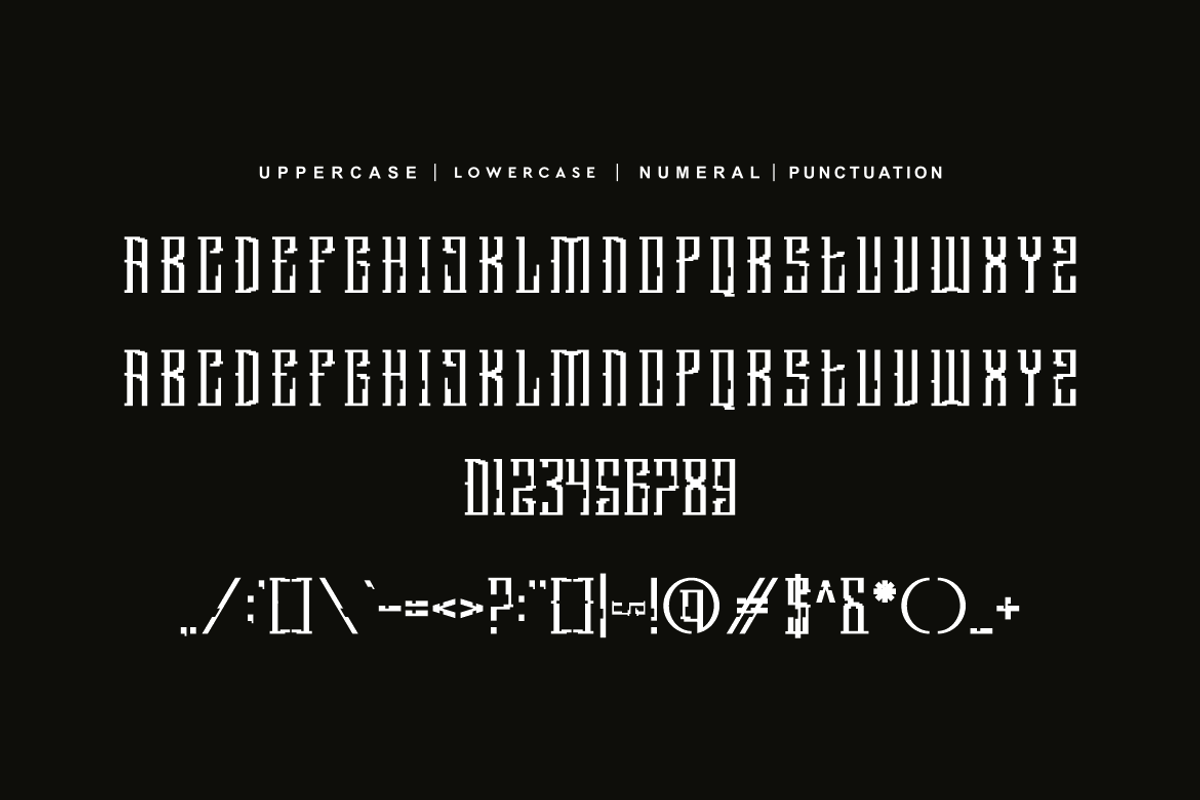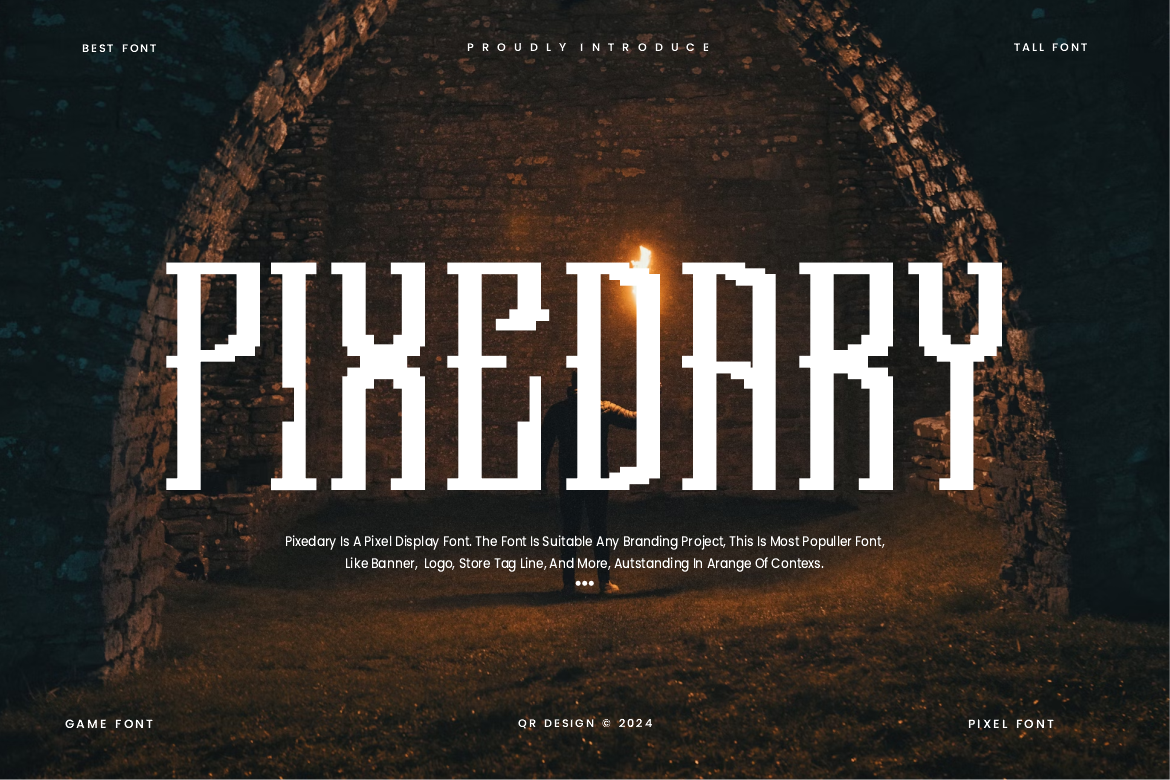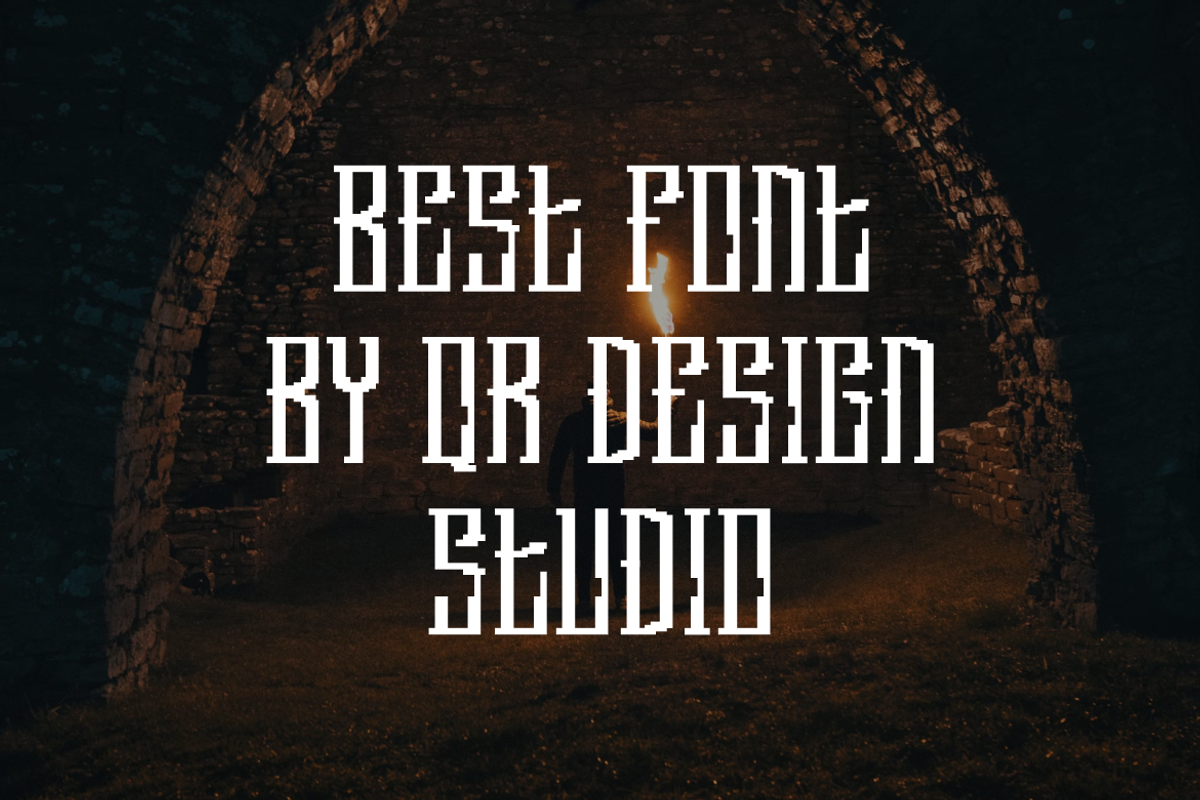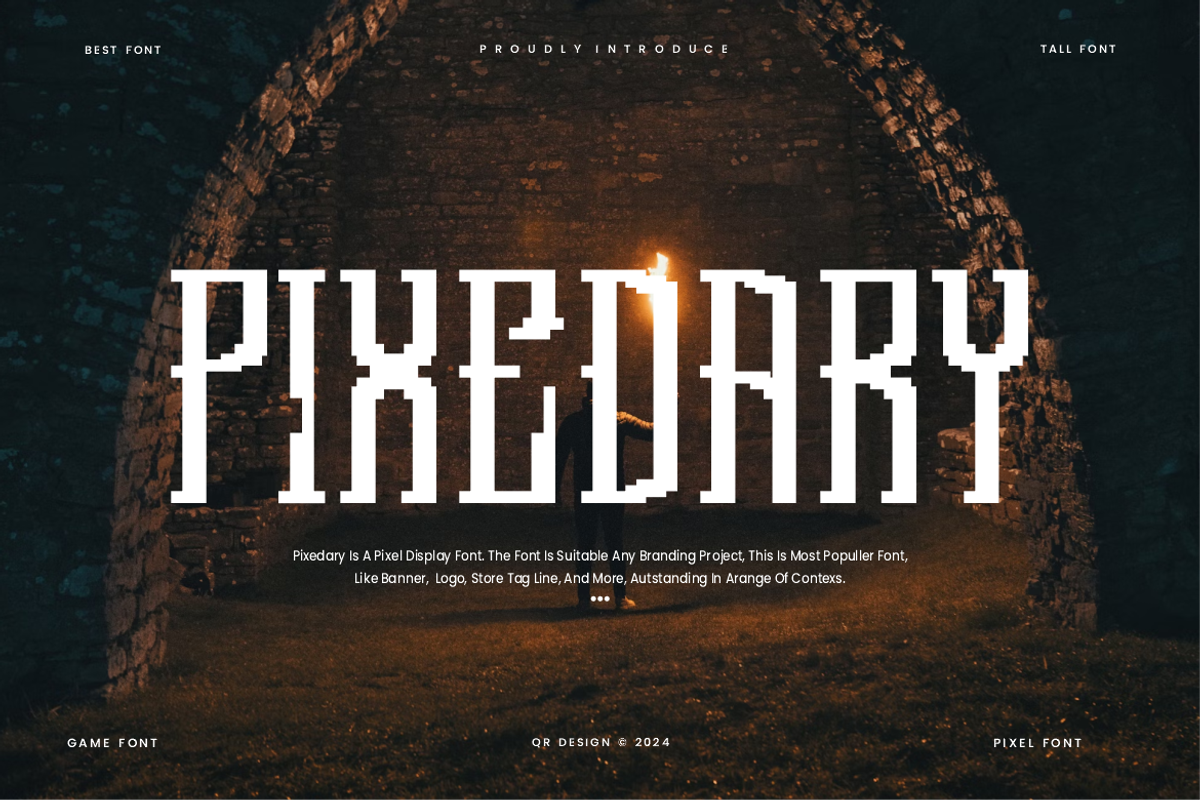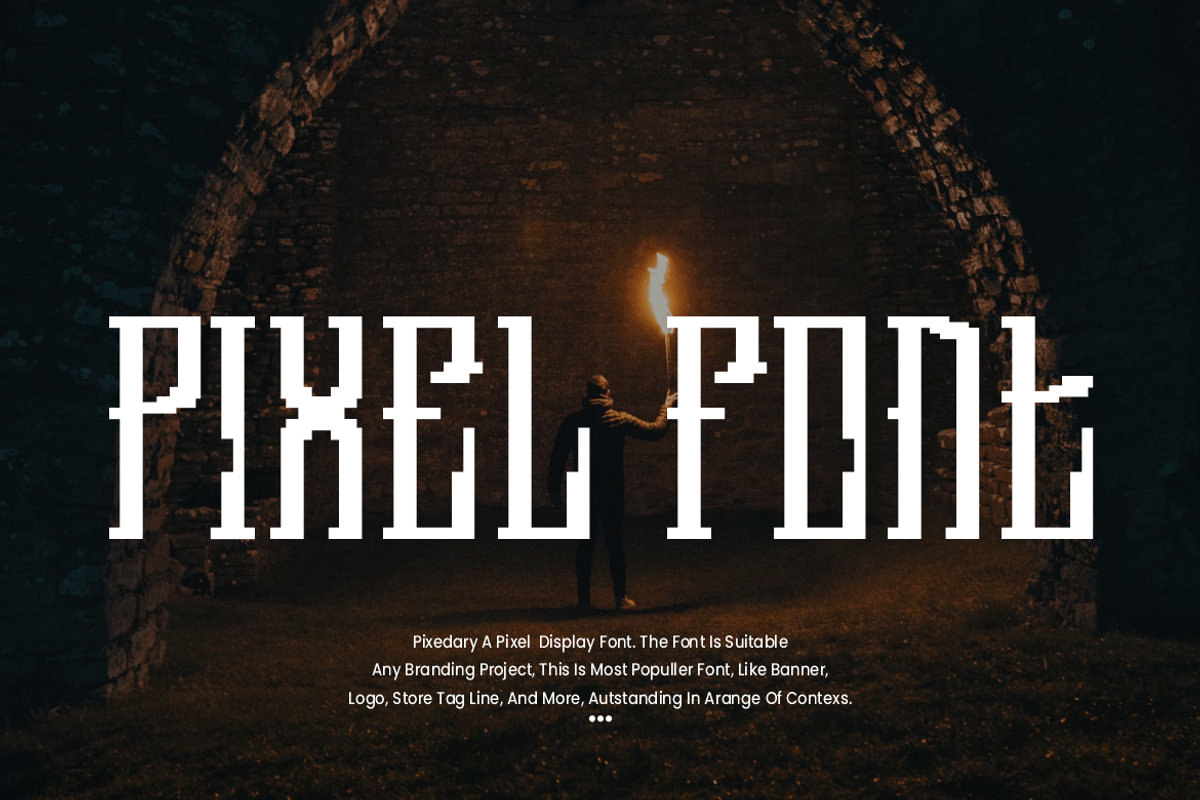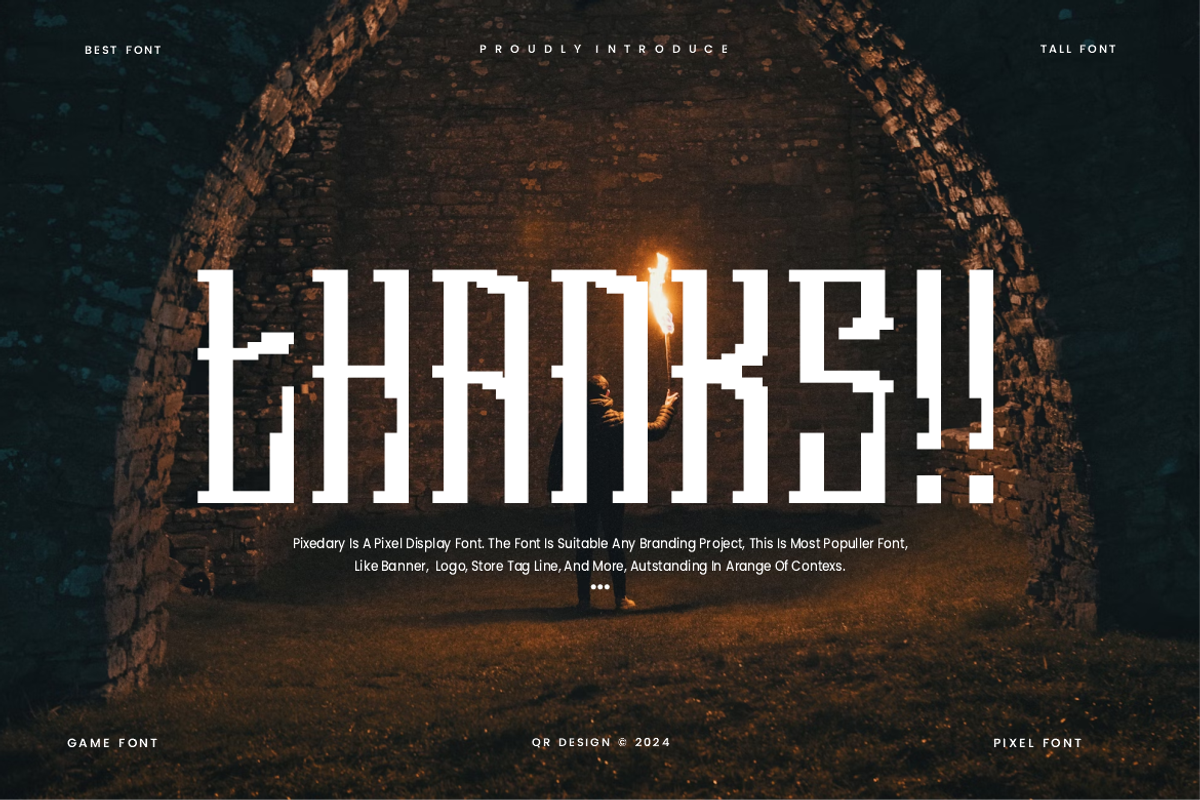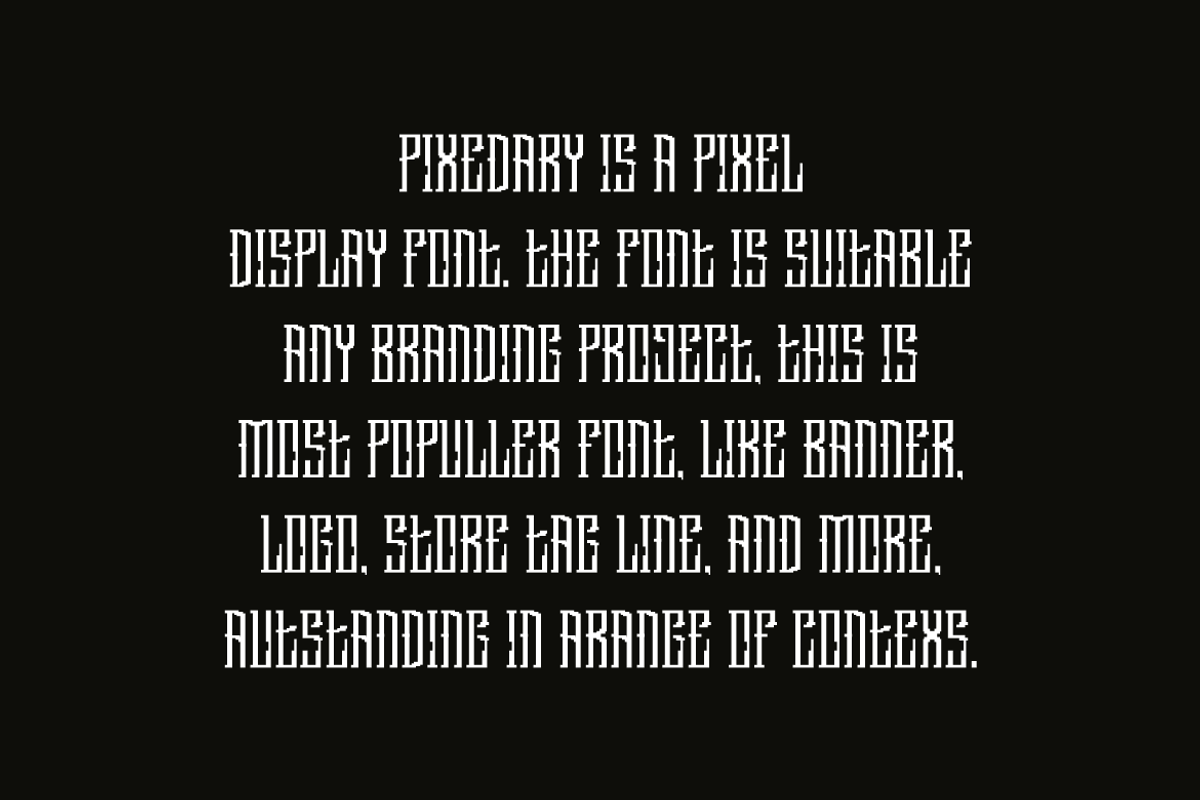
Pixedary - Pixel Font
Pixedary Font is a pixel and authentic display font. The font is suitable for any branding project like poster, logo, sport, and many more. Outstanding in a wide range of contexts.